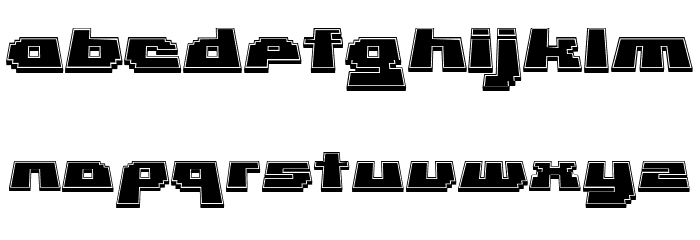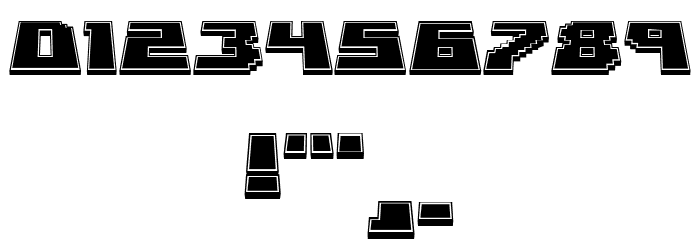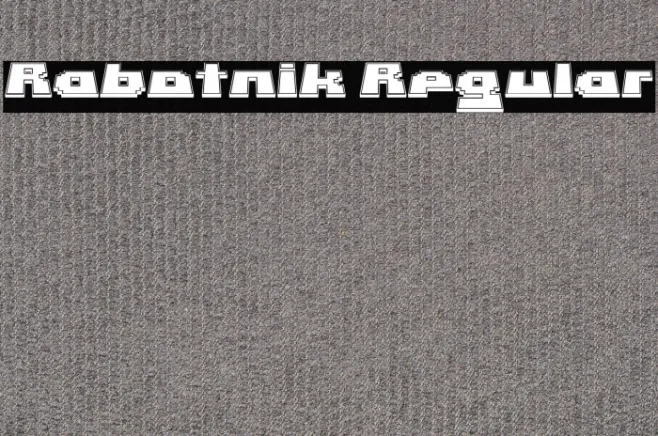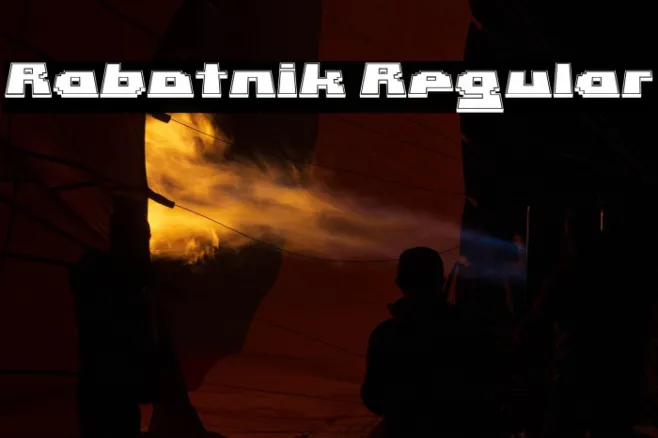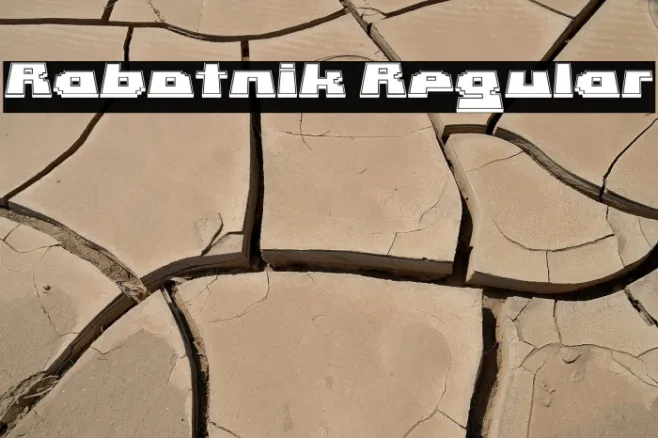
Rabotnik Regular Font
This font features a bold, geometric design with a distinct blocky appearance. Each character is crafted with sharp angles and a three-dimensional effect, giving it a futuristic and digital aesthetic. The uppercase and lowercase letters maintain a consistent style, with the lowercase slightly more compact. Numbers and special characters follow the same design principles, ensuring uniformity across all glyphs. The font's unique style makes it stand out, ideal for projects that require a modern and edgy look.
A bold, geometric font with a futuristic, digital aesthetic.
- Font: Rabotnik Regular
- Proposed Projects: Ideal for video game titles, tech branding, digital art projects, and modern posters.